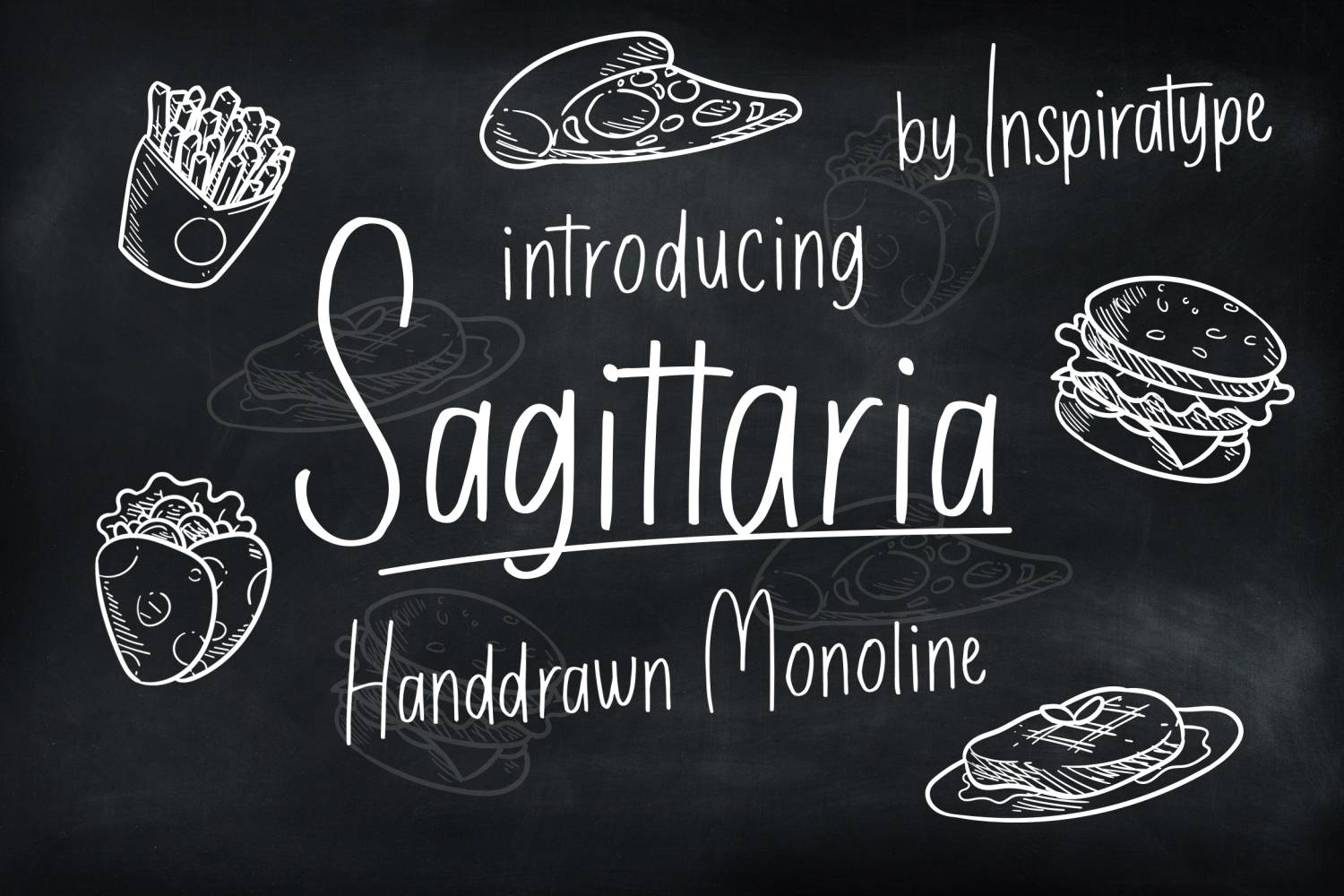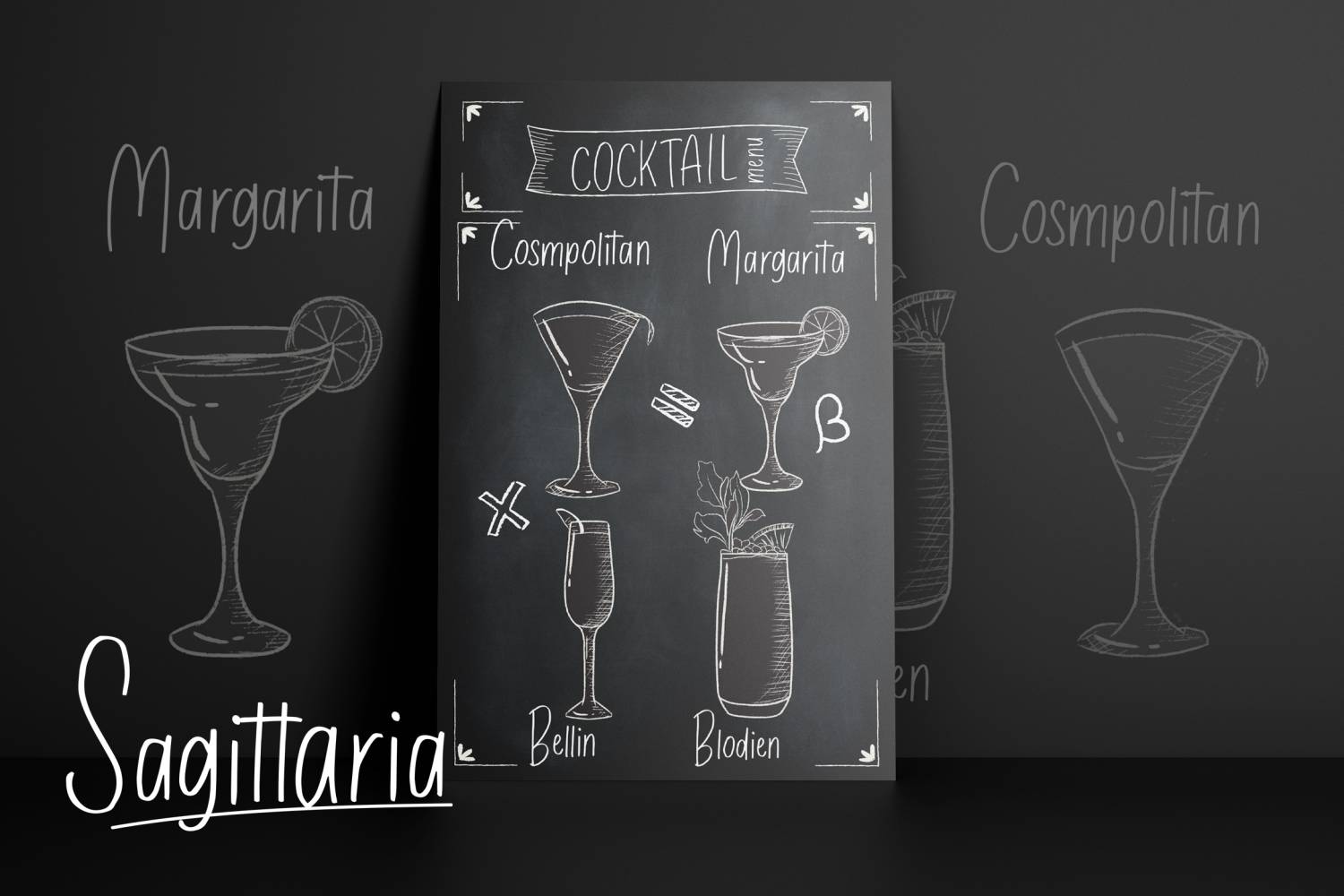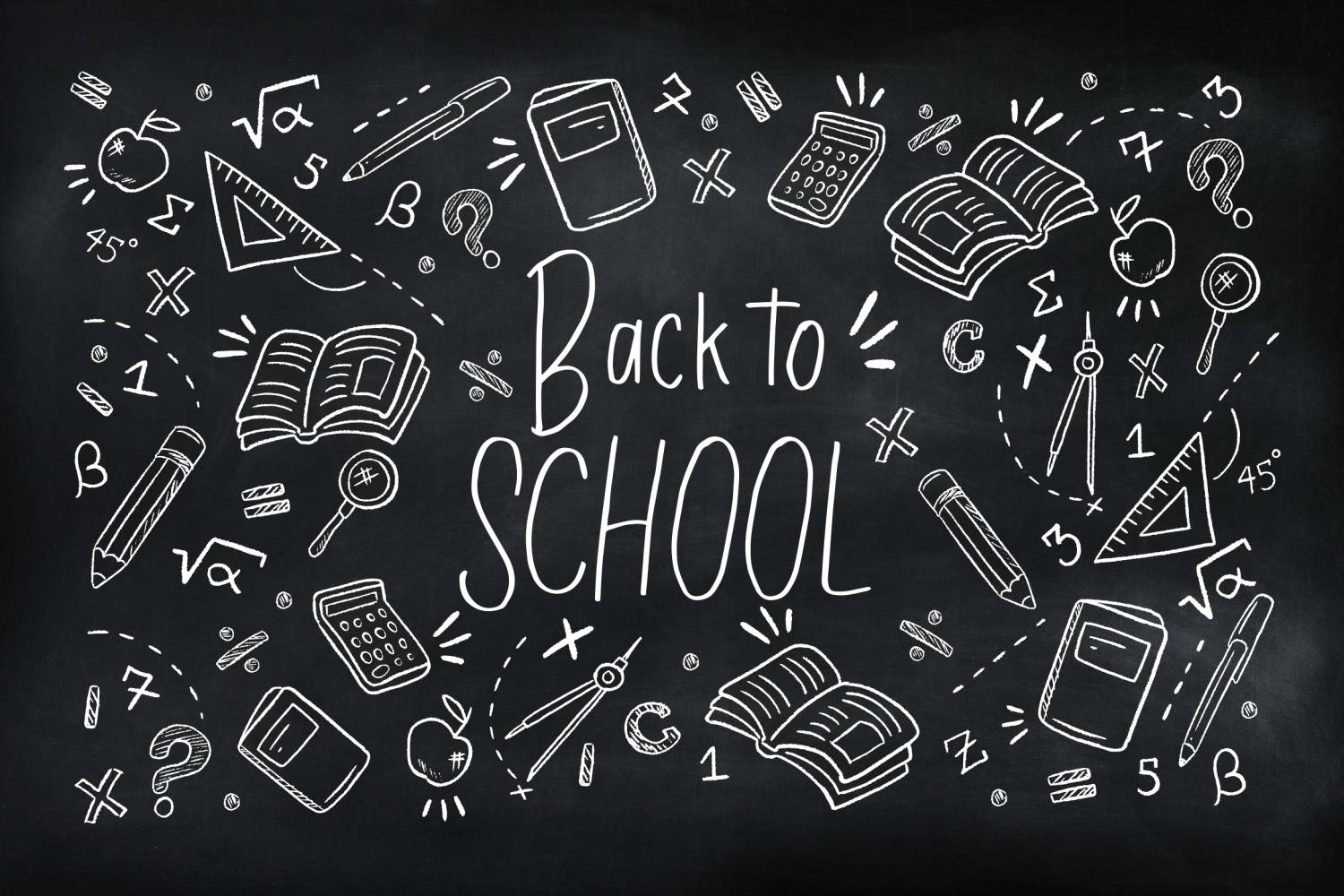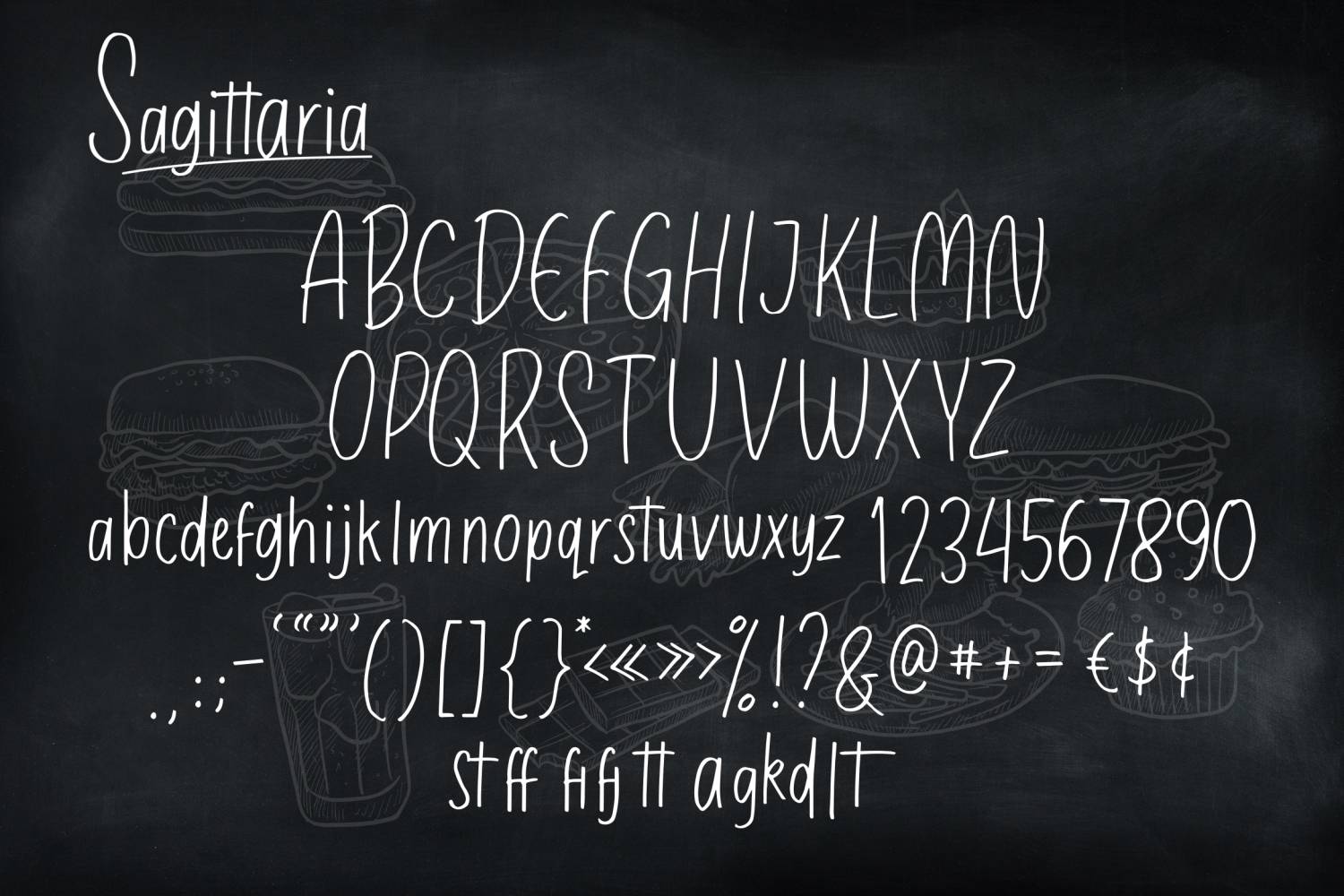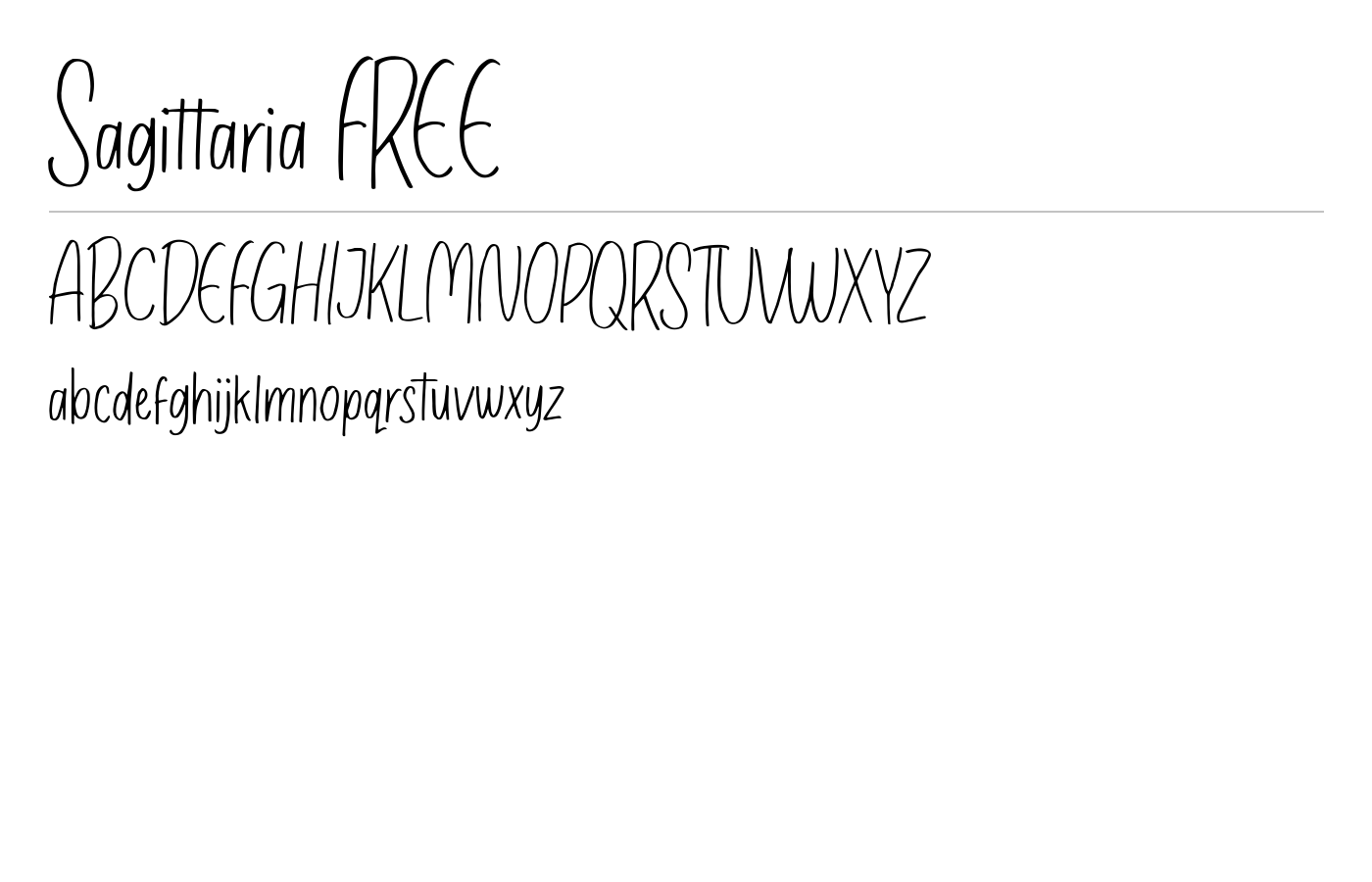
Sagittaria is a slender, tall, and playful handwritten sans serif font with a light weight and a casual, organic feel. Its narrow letterforms and irregular strokes give it a friendly and approachable style, making it perfect for informal designs like invitations, greeting cards, and creative branding. This font works well in projects seeking a personal and whimsical touch with an airy, light-hearted vibe.
Sagittaria Font
About Sagittaria Font
| Font family | Sagittaria Font |
| Designer | Inspiratype |